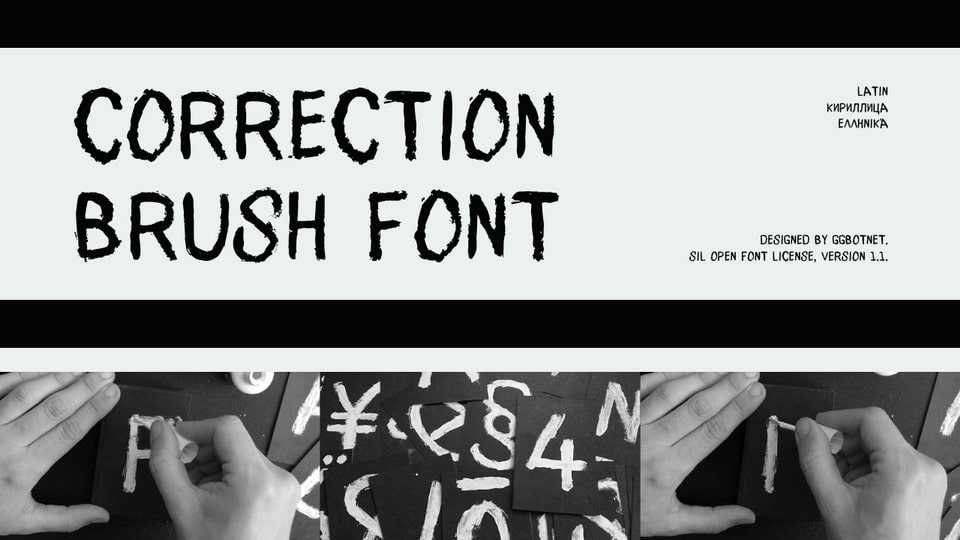
Download Correction Brush font, a hand painted brush font that brings a raw and edgy authenticity to your designs. This captivating typeface captures the essence of urban street art and rebellious creativity, as if each letter were crafted with a brush dipped in urban grit and artistic defiance.